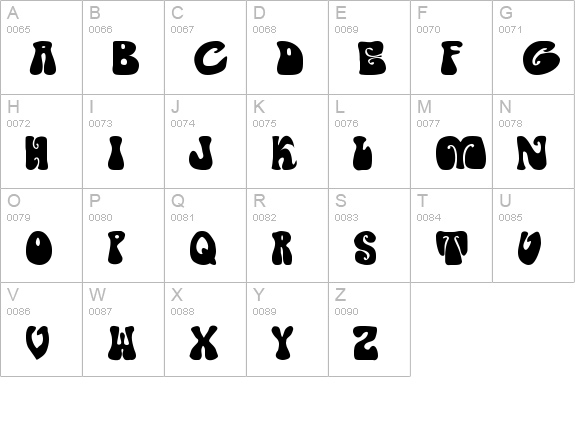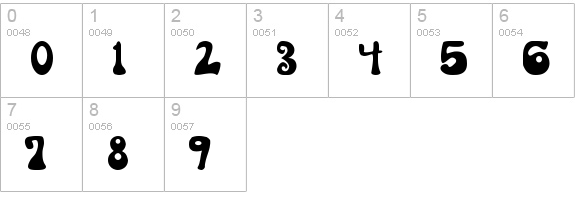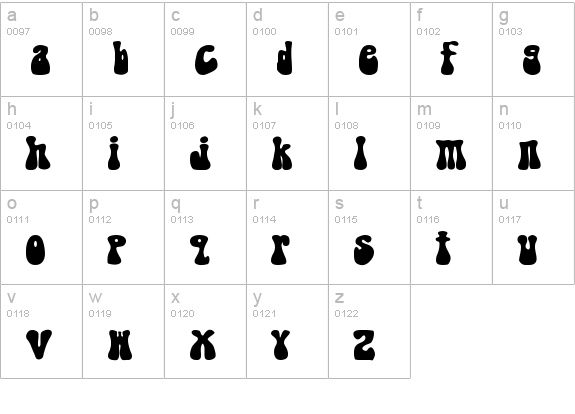
Shagadelic - DGL Bold Font Details
Shagadelic - DGL Bold is a strong, high-contrast variant in the Shagadelic typeface family \xE2\x80\x94 well suited to headlines, attention-grabbing titles, and strong calls-to-action.
Introducing Shagadelic - DGL Bold Font, a groovy and vibrant typeface that will transport you straight to the swinging 60s. This font is the epitome of retro cool, with its bold and playful letterforms that exude a sense of fun and excitement. Designed with meticulous attention to detail, Shagadelic - DGL Bold Font captures the essence of the psychedelic era, bringing to life the bold and audacious spirit of the time. Its distinctive curves and exaggerated serifs give each character a unique and eye-catching appearance, making it the perfect choice for adding a touch of nostalgia to your designs. Whether you're working on a vintage-inspired poster, a funky album cover, or a retro-themed website, Shagadelic - DGL Bold Font will add a touch of retro charm and personality to your project. Its versatility allows it to shine in both headlines and body text, ensuring that your message is conveyed with style and impact. And the best part? Shagadelic - DGL Bold Font is absolutely free! You can easily download this font at FontsMarket.com, where it is available for instant download. Say goodbye to expensive font licenses and hello to creative freedom. So why wait? Embrace the spirit of the 60s and add a dash of retro flair to your designs with Shagadelic - DGL Bold Font. Download it today and let your creativity run wild!